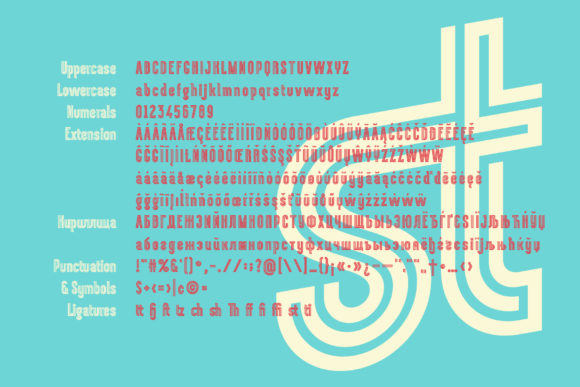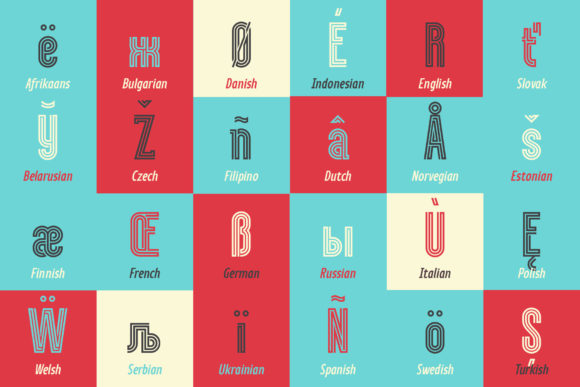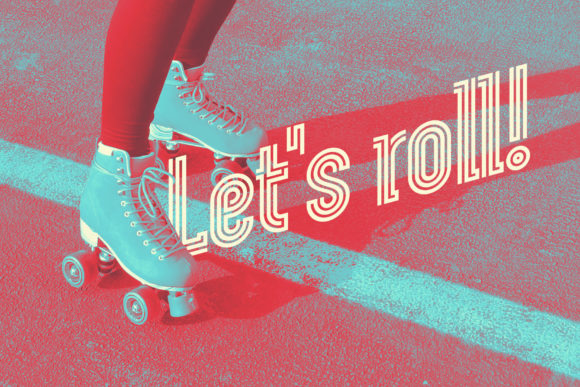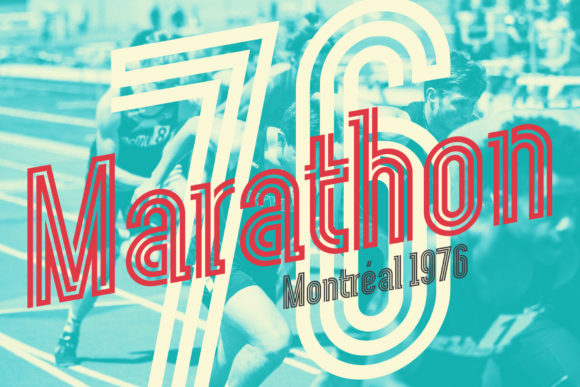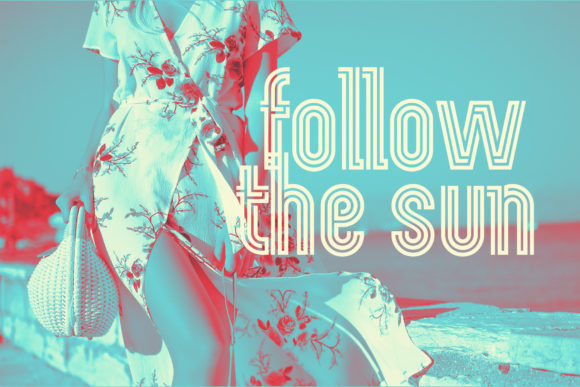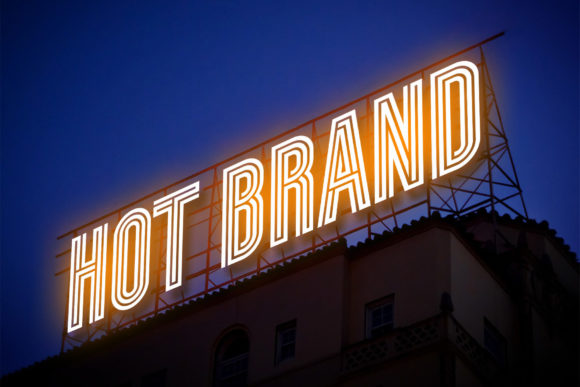
Introducing Chokana Font: The Ultimate Retro Display Font for Your Design Needs
Are you looking for a font that can add a touch of nostalgia and retro charm to your designs? Look no further than Chokana Font, a multi-line display font inspired by the iconic 70’s aesthetic. With its bold and playful style, Chokana is perfect for creating bright captions and unforgettable logos that will capture everyone’s attention.
The Inspiration Behind Chokana Font
Chokana Font is a loving tribute to the design trends of the 1970s, an era known for its vibrant colors, bold patterns, and eclectic style. The font’s design is rooted in the nostalgia of this bygone era, evoking memories of retro advertisements, disco posters, and vintage typography. With Chokana, you can bring a piece of this retro charm to your modern designs and make them stand out from the crowd.
Key Features of Chokana Font
- Multi-line display font: Chokana is designed to make a statement, with its bold and playful style perfect for headlines, captions, and logos.
- Retro aesthetic: Inspired by the 70’s design trends, Chokana features a unique blend of curves, lines, and geometric shapes that will add a touch of nostalgia to your designs.
- Highly versatile: Chokana can be used for a wide range of design projects, from branding and advertising to packaging and digital media.
- Easily readable: Despite its bold style, Chokana is highly legible, making it perfect for use in titles, headings, and short paragraphs.
Why Choose Chokana Font?
So why choose Chokana Font for your design needs? Here are just a few reasons:
- Add a retro touch: Chokana is the perfect solution if you want to add a touch of nostalgia and retro charm to your designs.
- Stand out from the crowd: With its bold and playful style, Chokana is sure to make your designs stand out from the crowd and capture everyone’s attention.
- Perfect for creative projects: Whether you’re a designer, crafty DIY enthusiast, or social media influencer, Chokana is the perfect addition to your creative projects.
How to Use Chokana Font in Your Designs
Using Chokana Font in your designs is easy and straightforward. Here are a few tips to get you started:
- Pair with complementary fonts: Chokana pairs well with clean and simple fonts, such as sans-serif fonts like Arial or Helvetica.
- Experiment with colors: Chokana looks great in bold and bright colors, but feel free to experiment with different hues and shades to find the perfect combination for your design.
- Use for headlines and captions: Chokana is perfect for use in headlines, captions, and short paragraphs, but feel free to experiment with different uses and applications.
In conclusion, Chokana Font is a versatile and stylish multi-line display font that’s perfect for adding a touch of retro charm to your designs. With its bold and playful style, Chokana is sure to capture everyone’s attention and make your designs stand out from the crowd. So why wait? Download Chokana Font today and add a lovely retro touch to your creative projects!